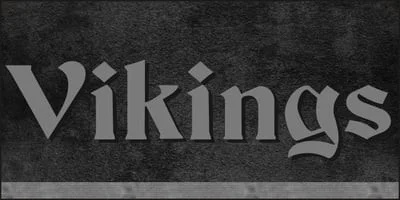
Inland Becker Font
Inland Becker Font is perfect for heartland design projects including agricultural branding, farmland real estate materials, rural community publications, countryside tourism promotions, local government documents, small-town business signage, harvest festival posters, and regional heritage campaigns. This authentic typeface excels in farming equipment catalogs, rural banking materials, county fair graphics, agricultural university publications, and projects celebrating midwest values and inland American traditions.
What makes Inland Becker Font exciting is its genuine heartland character that perfectly captures the essence of rural authenticity and small-town American values. The font features sturdy, reliable letterforms with honest proportions that reflect the dependability and straightforward nature of inland communities. Its wholesome design elements embody the hardworking spirit and traditional values of agricultural America, making it perfect for projects that need to convey trustworthiness, community pride, and connection to the land. The carefully crafted characters suggest generations of honest craftsmanship and rural heritage.
Inland Becker Font comes in multiple family variations including light, regular, medium, bold, and rustic styles. Each weight maintains the distinctive heartland character while offering different levels of visual strength and rural authenticity. The font family includes farmland alternates, agricultural ligatures, and heritage variations that provide designers with comprehensive options for creating truly genuine and community-focused typographic expressions.
Whether you're designing agricultural branding, creating rural marketing materials, or developing small-town promotional graphics, Inland Becker Font provides the perfect typographic foundation for projects that celebrate heartland values and rural excellence. This remarkable typeface transforms standard text into compelling expressions of American authenticity and community spirit. Download this wonderful font today and cultivate your design projects with typography that grows strong roots in the fertile soil of inland American tradition and agricultural heritage.